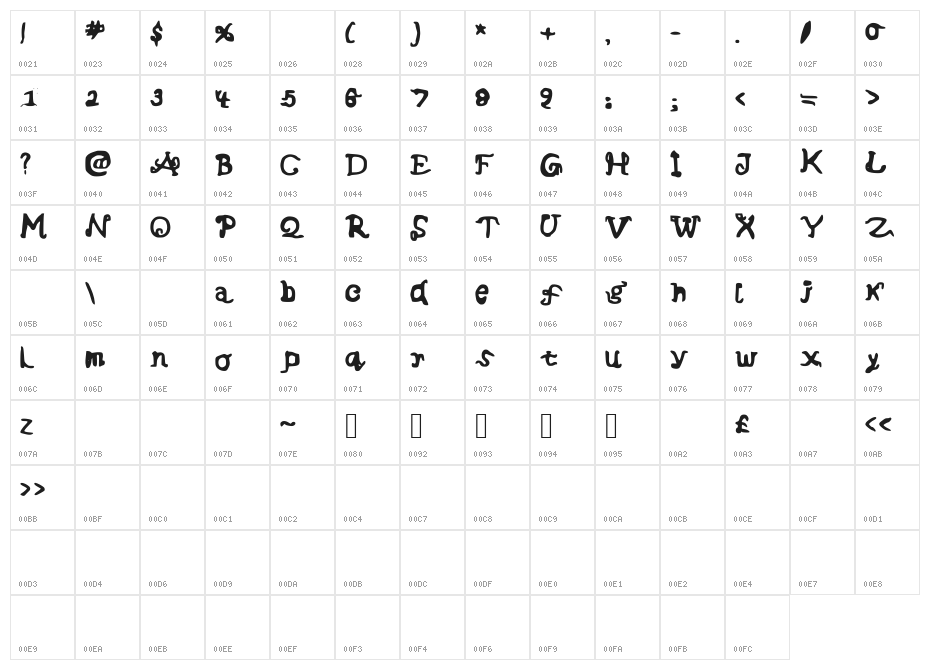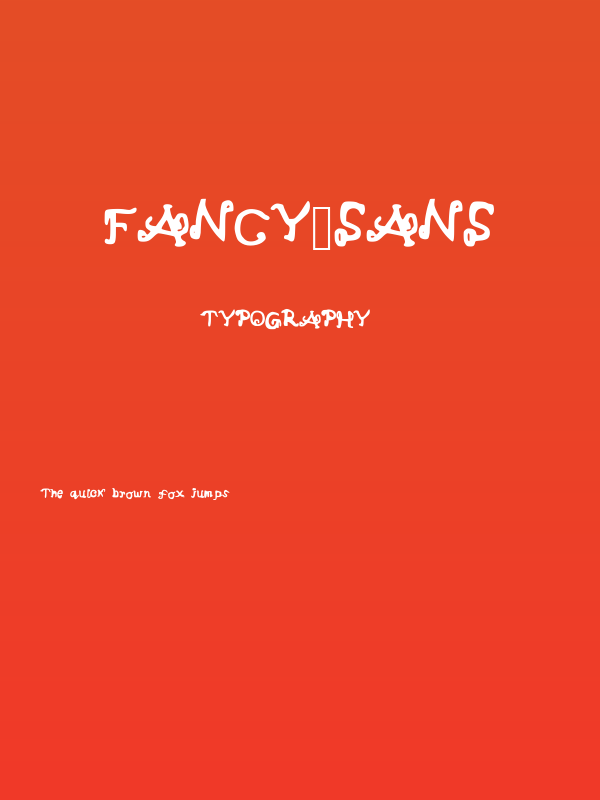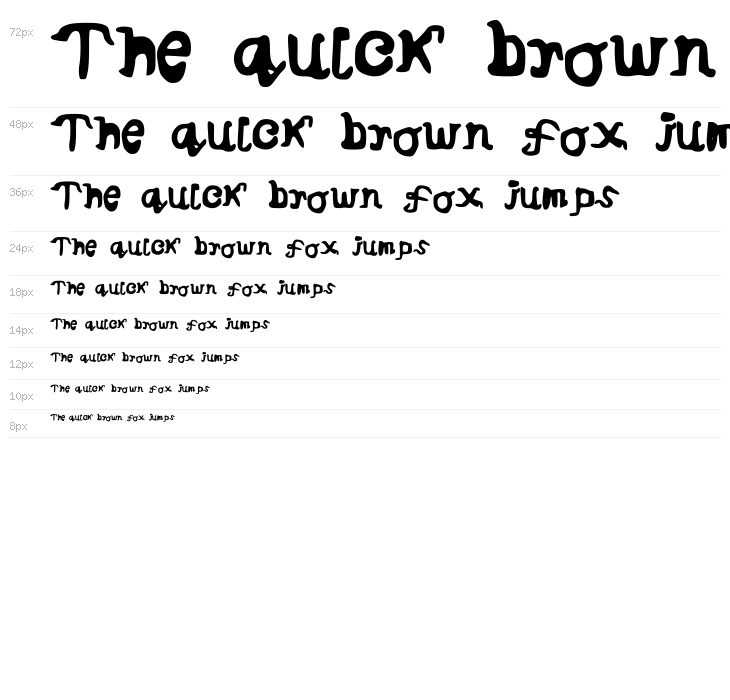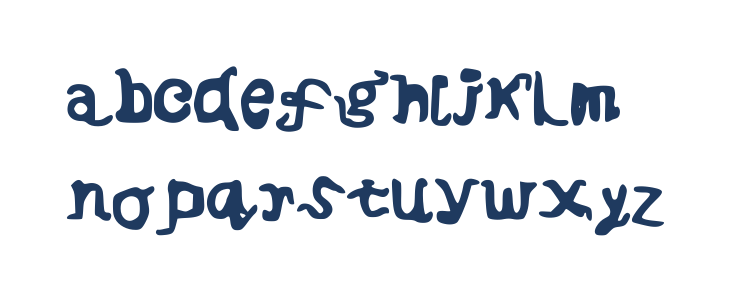
Fancy_sans Font
Fancy_sans Description
This font features a whimsical and playful design, characterized by its bold and irregular strokes. The letters exhibit a unique blend of curves and angles, giving it a lively and dynamic appearance. The uppercase and lowercase letters maintain a consistent style, with exaggerated serifs and varying stroke widths that add to its quirky charm. Numbers and special characters follow the same playful aesthetic, making the font suitable for creative and informal applications. Its distinct style makes it stand out, offering a sense of fun and creativity.
| Proposed Projects | Ideal for children's books, playful branding, party invitations, and creative posters. |